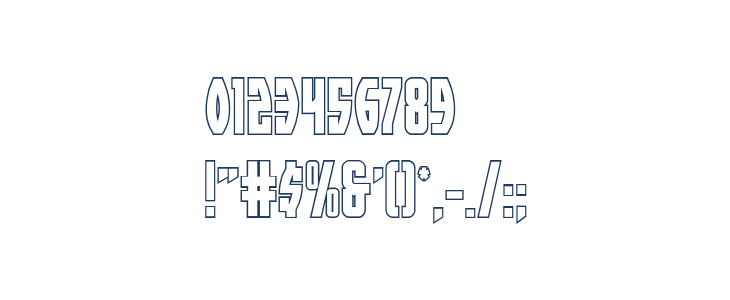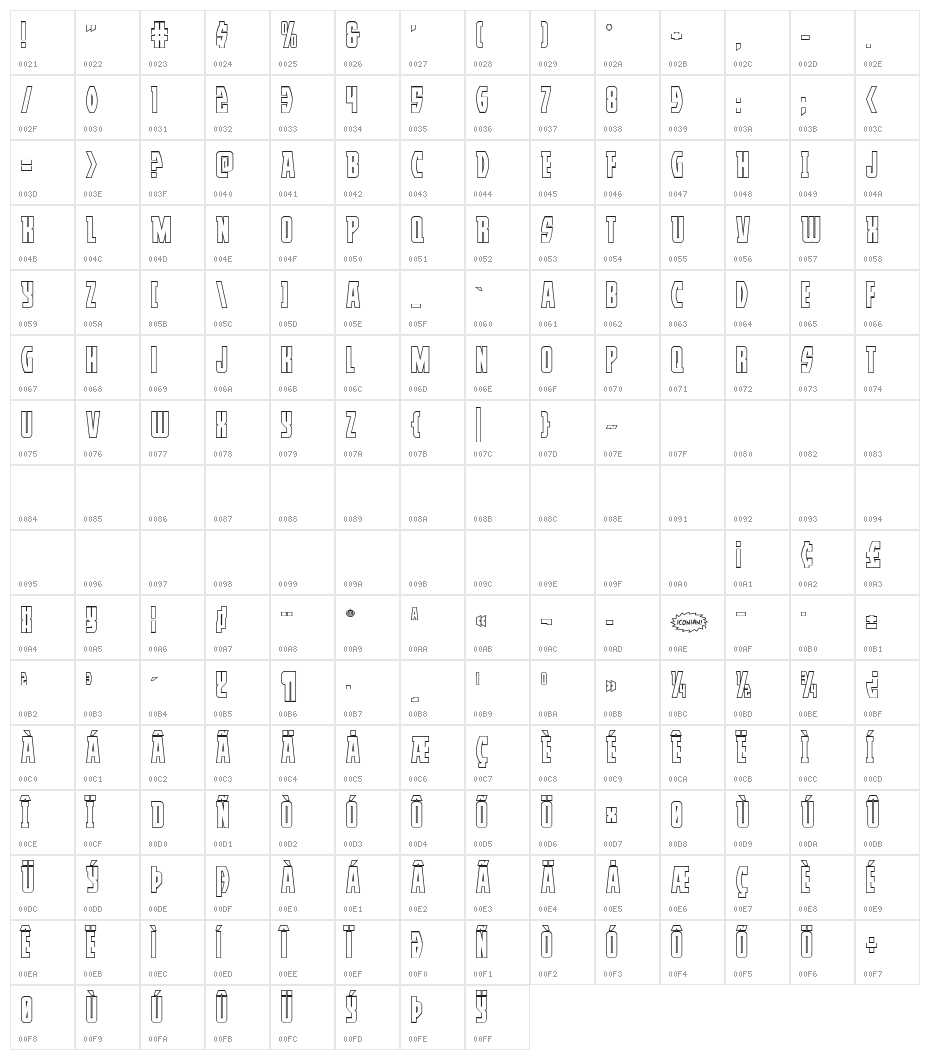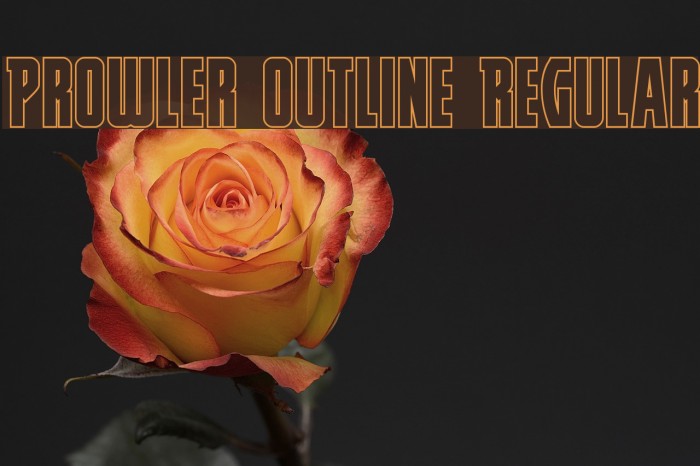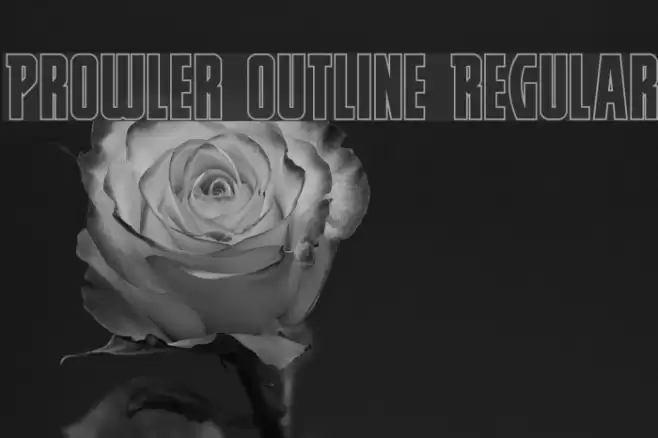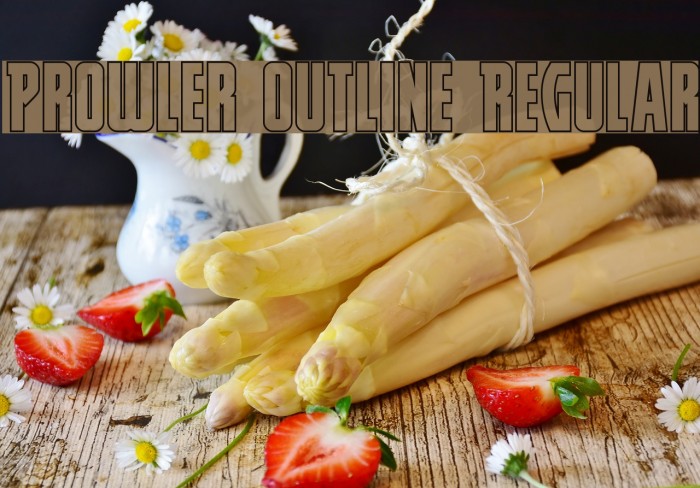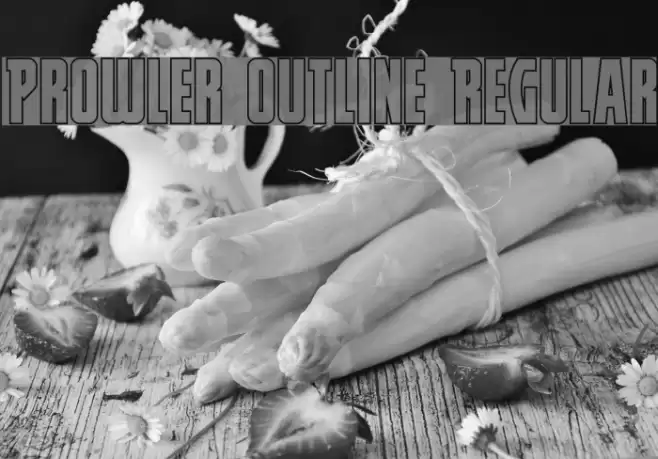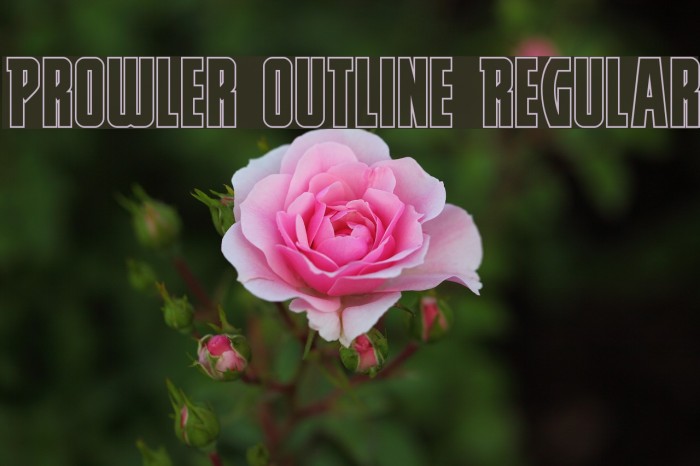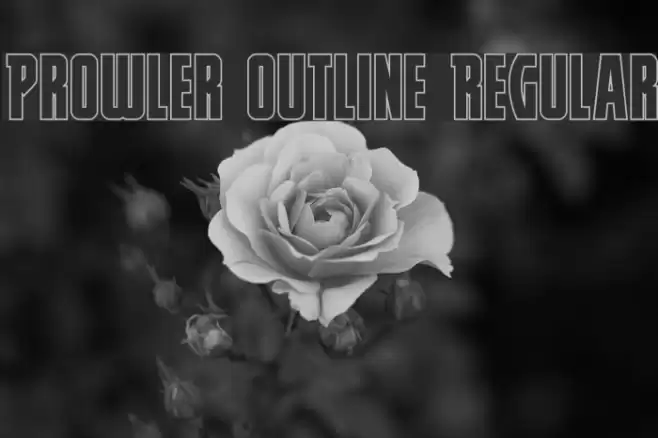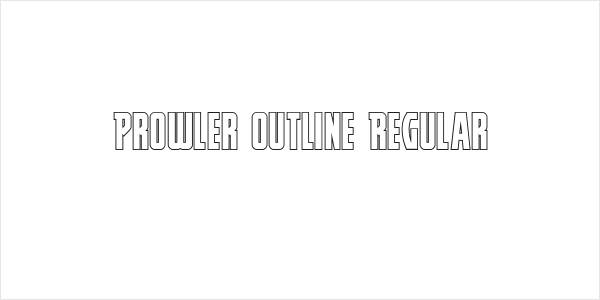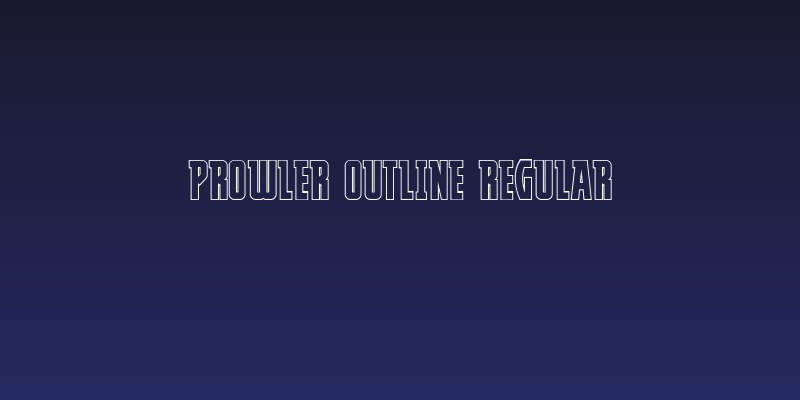
Prowler Outline Regular Font
Prowler Outline Regular Description
This font features a bold, outlined style that gives it a striking and impactful appearance. The characters are uppercase and have a geometric, angular design that conveys a sense of modernity and strength. The outlines are consistent in thickness, creating a uniform look across all letters and numbers. The font is highly legible and stands out due to its unique outline effect, making it suitable for attention-grabbing designs. The spacing between characters is normal, ensuring readability while maintaining its bold aesthetic.